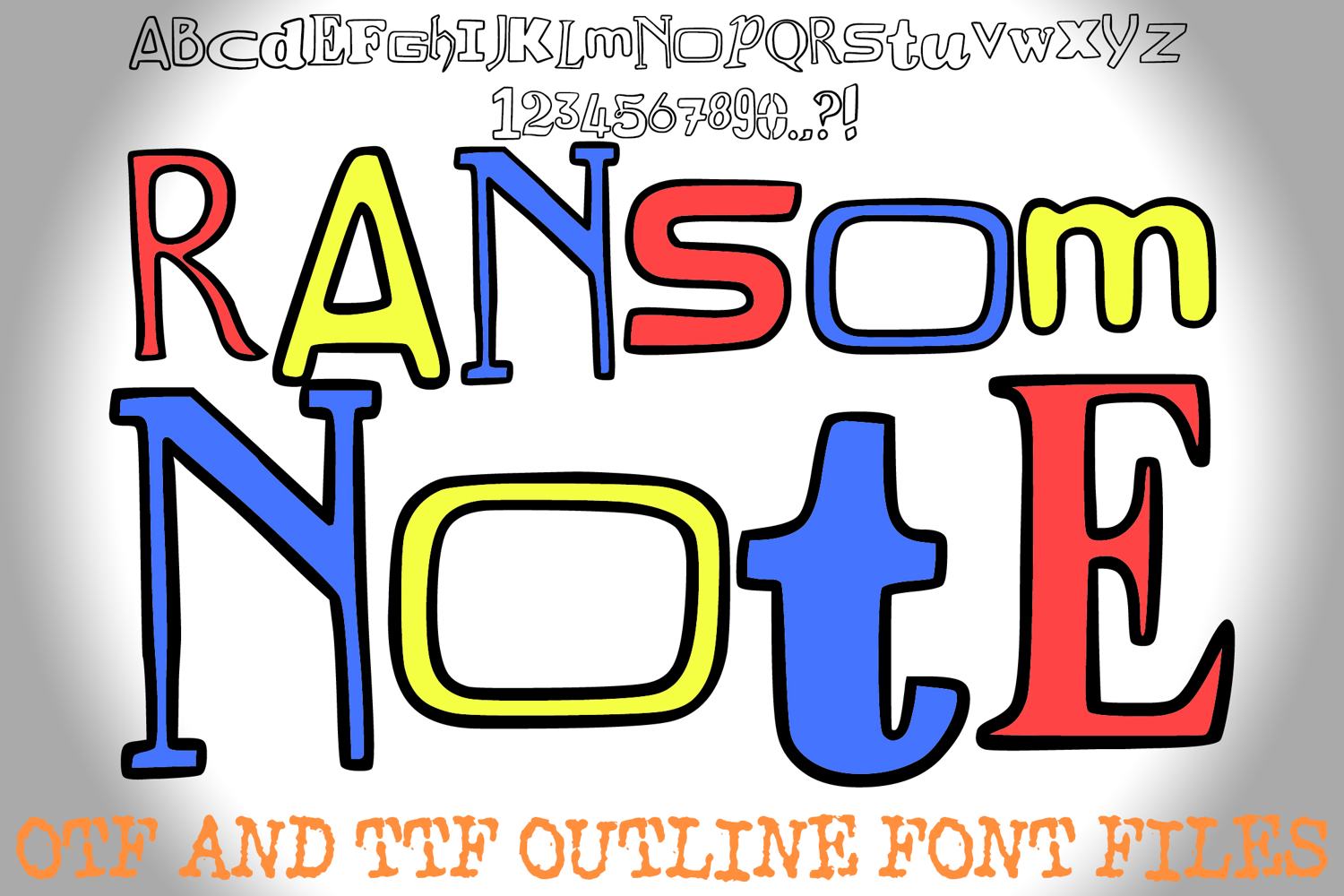
Ransom Note Random Alphabet Lettering ABC Text Font
Unleash the unexpected with the Ransom Note Font! This truly unique display typeface offers an arresting, hand-drawn aesthetic where no two letters quite match. Featuring a chaotic mix of irregular serifs, playful sans-serif curves, and inconsistent baselines, this font immediately conveys a sense of urgency, mystery, or raw artistic energy, mimicking the look of traditional ransom note clippings.
This font is perfect for projects that demand a grunge, rebellious, or quirky DIY look. It's an excellent choice for album art, video game titles, protest posters, unique brand logos, or any design needing a bold, chaotic statement. The clear, thick outline makes it ideal for cutting vinyl on machines like Cricut and Silhouette.